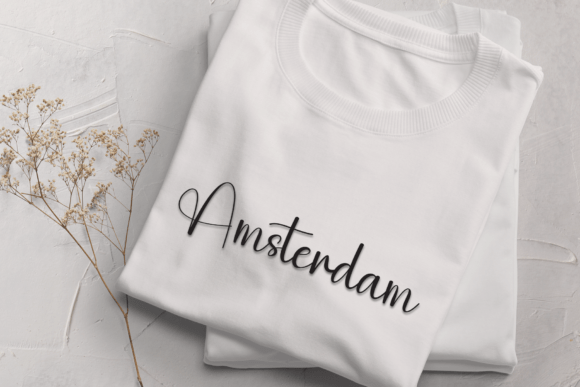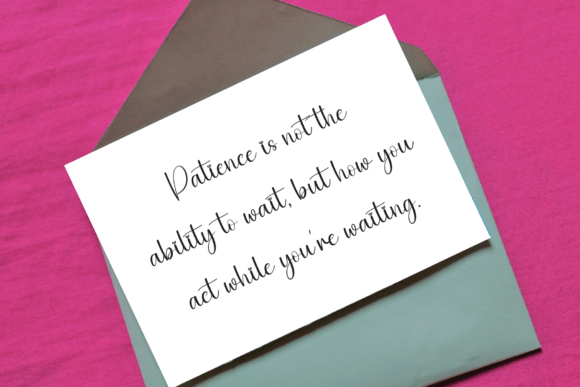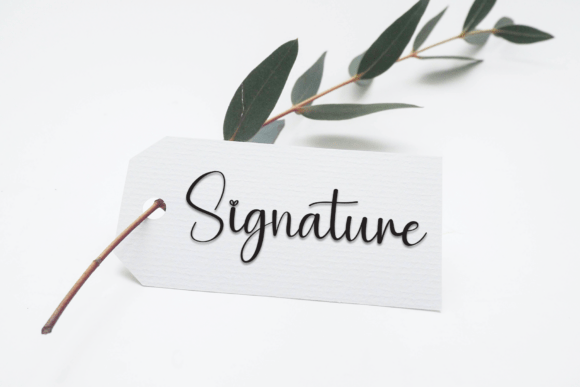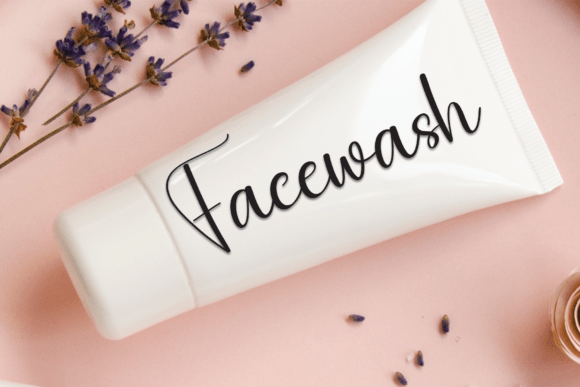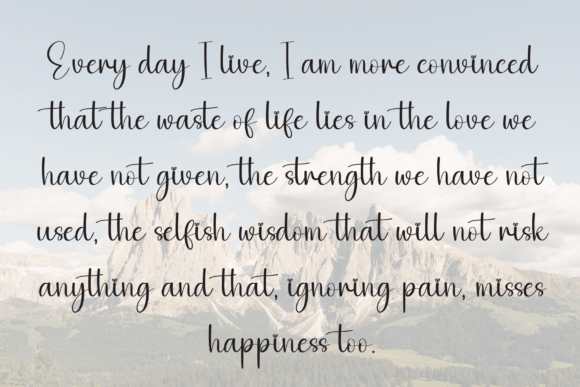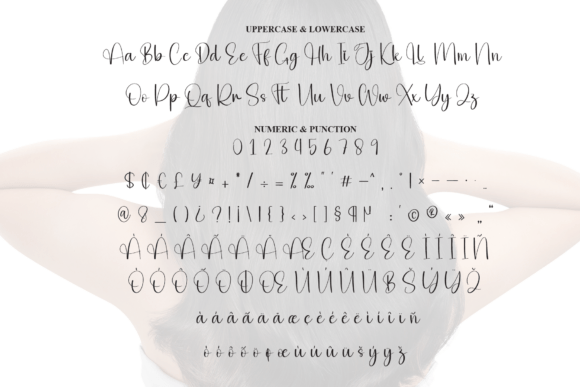
Bulky Font: Elevate Your Designs with Artistic Flair and Contemporary Elegance
In the world of typography, few fonts manage to strike a balance between artistic expression and modern sophistication. Bulky Font is one such exceptional typeface that brings together the fluidity of brush strokes, the dynamism of curves, and the expressiveness of letterforms to create a truly unique visual experience. This stylish script font is designed to infuse your designs with a creative and sophisticated touch, making it an ideal choice for a wide range of applications.
The Essence of Bulky Font
Bulky Font is inspired by the art of hand-painted calligraphy, but with a modern twist that sets it apart from traditional script fonts. Its fluid brush strokes and dynamic curves give it a natural, organic feel that is both visually striking and highly expressive. Each letterform is carefully crafted to convey a sense of movement and energy, making it perfect for designs that require a touch of elegance and sophistication.
Key Features of Bulky Font
- Fluid Brush Strokes: The font’s fluid brush strokes give it a natural, hand-painted look that is both artistic and expressive.
- Dynamic Curves: The dynamic curves and swirling lines add a touch of elegance and sophistication to the font.
- Expressive Letterforms: Each letterform is carefully crafted to convey a sense of movement and energy, making it perfect for designs that require a touch of creativity.
- Modern Twist: The font’s modern twist sets it apart from traditional script fonts, making it ideal for contemporary designs.
Use Cases for Bulky Font
Bulky Font is a versatile typeface that can be used in a wide range of design applications. Here are some of the most popular use cases:
- Logos: The font’s unique blend of artistic flair and contemporary elegance makes it an ideal choice for logos that require a touch of sophistication.
- Invitations: The font’s elegant and expressive letterforms make it perfect for invitations, such as wedding invitations, birthday invitations, and more.
- Packaging: The font’s dynamic curves and fluid brush strokes make it a great choice for packaging designs that require a touch of creativity.
- Social Media Graphics: The font’s versatility and expressiveness make it ideal for social media graphics, such as Instagram posts, Facebook posts, and more.
Benefits of Using Bulky Font
Using Bulky Font in your designs offers a range of benefits, including:
- Visual Impact: The font’s unique blend of artistic flair and contemporary elegance makes it a great choice for designs that require a touch of sophistication.
- Versatility: The font’s versatility makes it ideal for a wide range of design applications, from logos to social media graphics.
- Creativity: The font’s expressive letterforms and dynamic curves make it perfect for designs that require a touch of creativity.
Tips for Using Bulky Font
Here are some tips for using Bulky Font in your designs:
- Use it sparingly: The font’s expressive letterforms and dynamic curves make it perfect for use in headings and titles, but use it sparingly to avoid overwhelming the design.
- Pair it with a simple font: Pairing Bulky Font with a simple font can help to create a striking contrast and add visual interest to the design.
- Experiment with colors: The font’s fluid brush strokes and dynamic curves make it perfect for use with a range of colors, so don’t be afraid to experiment and find the perfect combination.
In conclusion, Bulky Font is a stylish script font that offers a unique blend of artistic flair and contemporary elegance. Its fluid brush strokes, dynamic curves, and expressive letterforms make it perfect for a wide range of design applications, from logos to social media graphics. With its versatility, creativity, and visual impact, Bulky Font is an ideal choice for designers and crafters looking to elevate their designs to the next level.